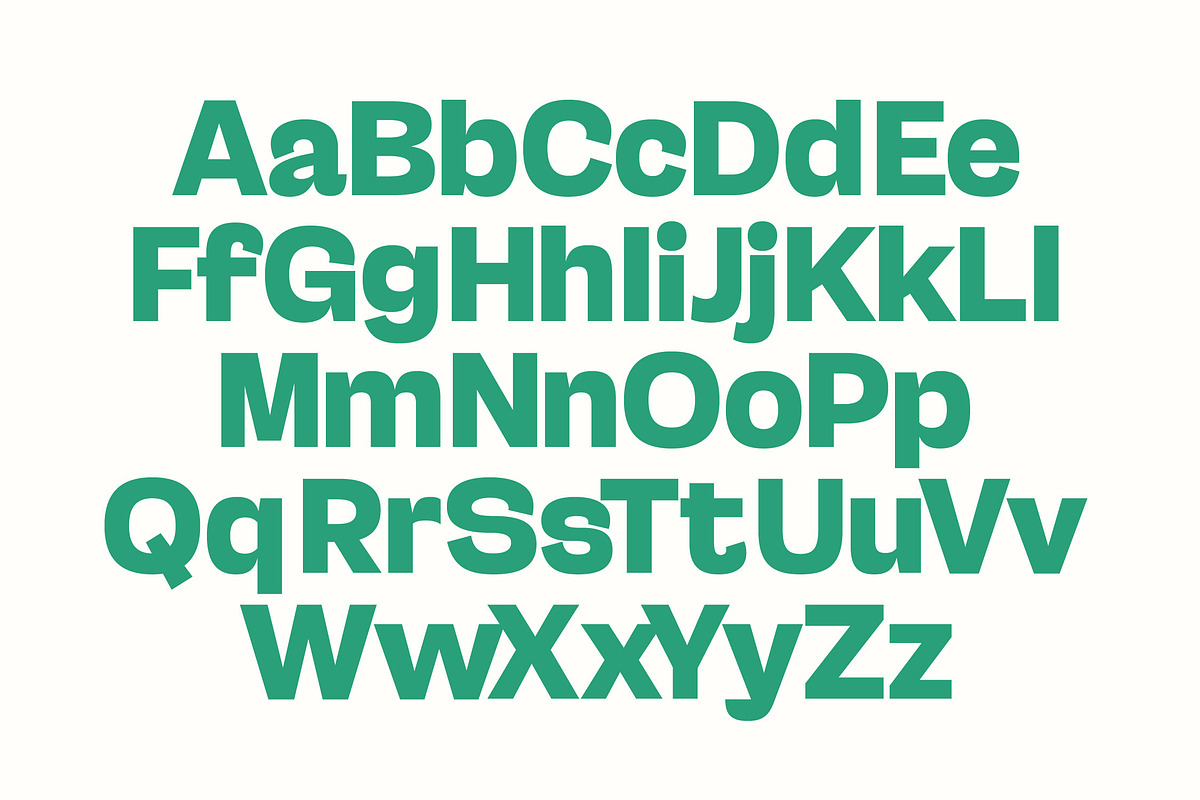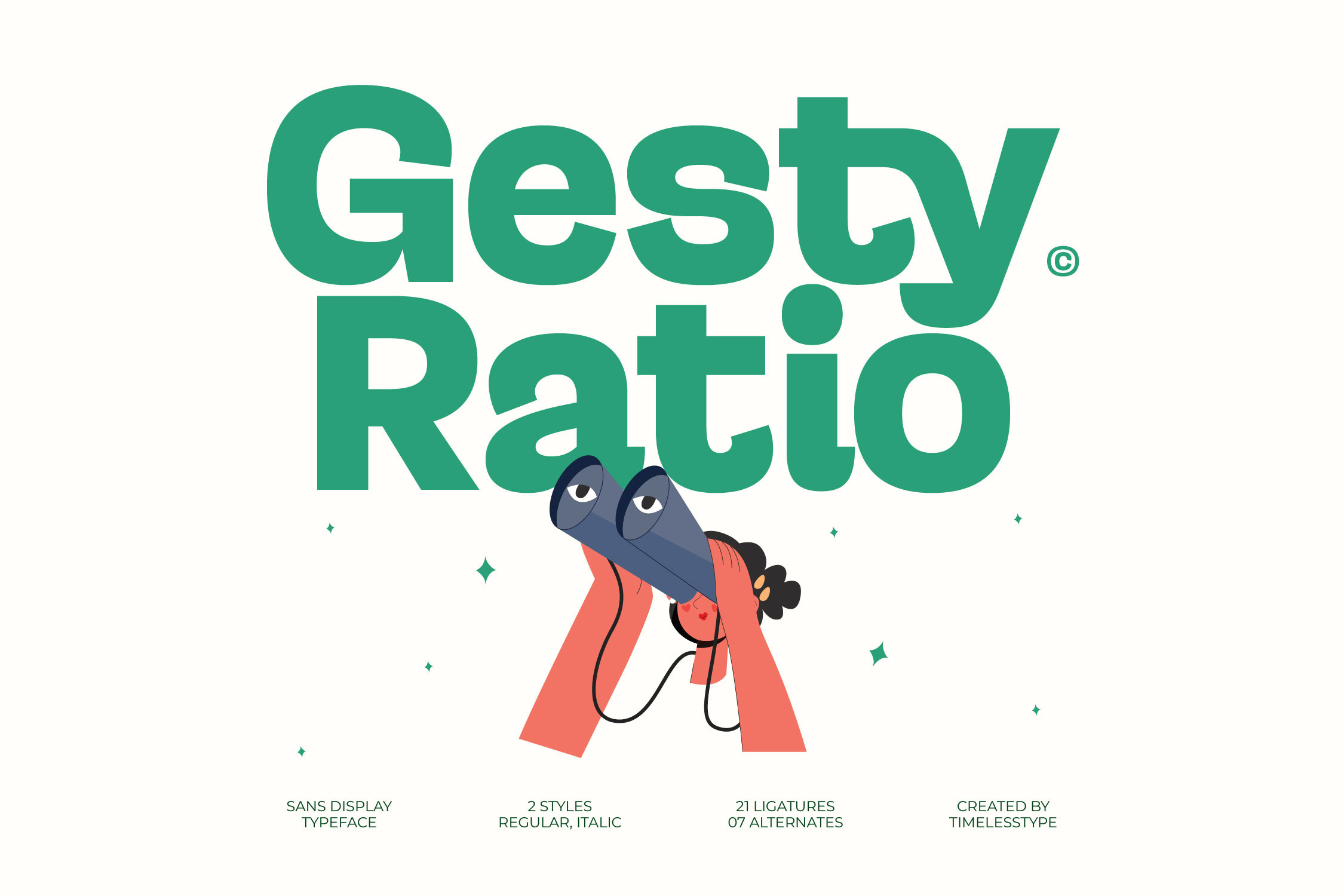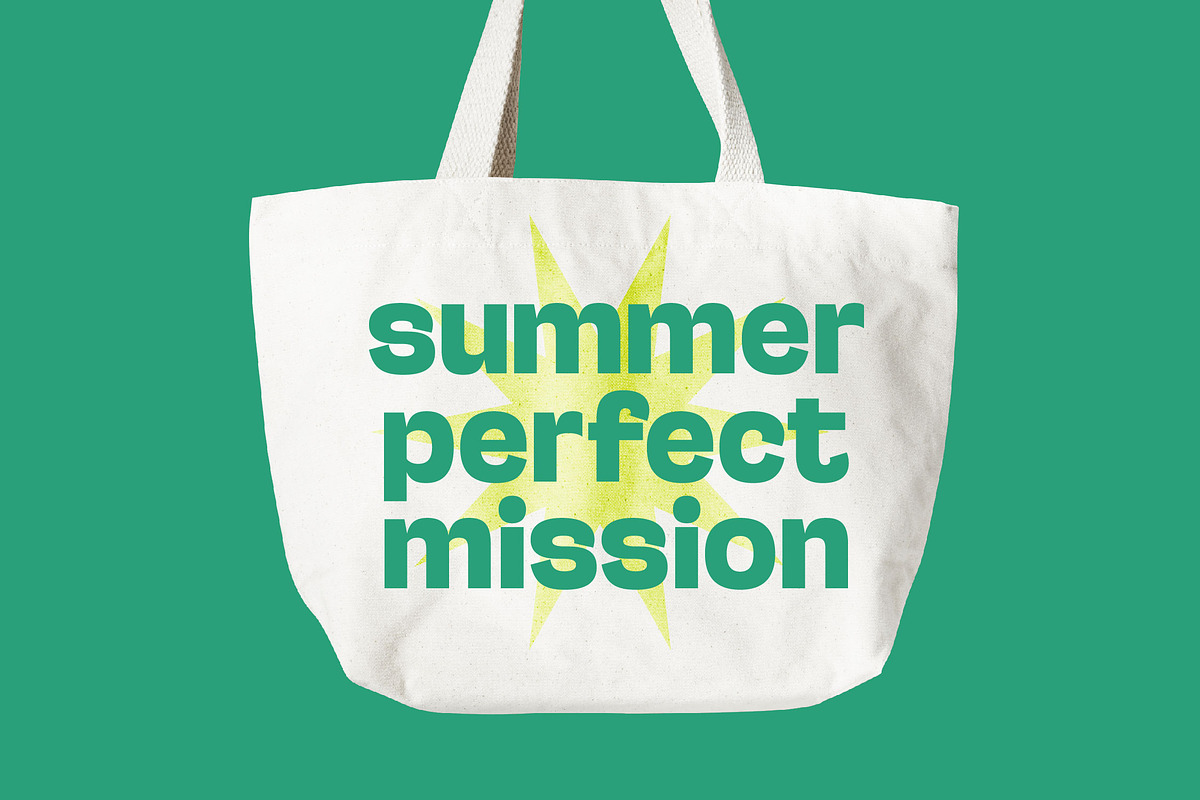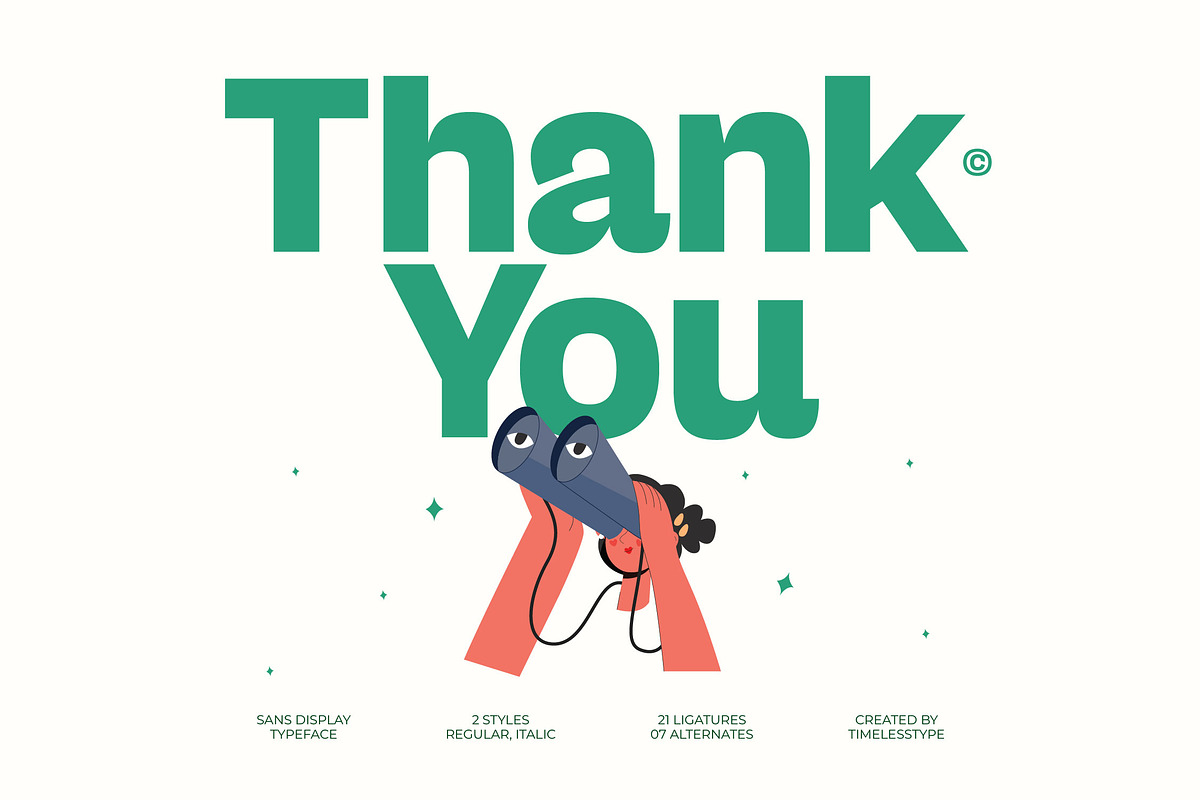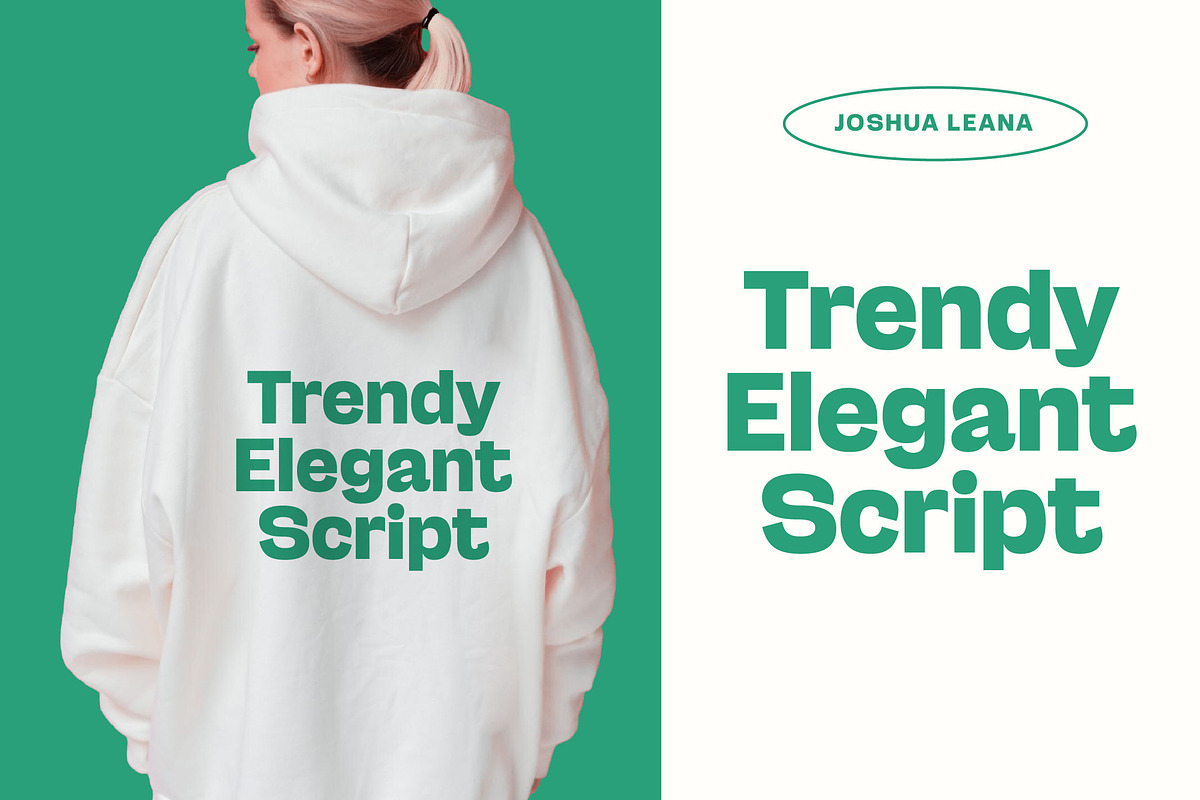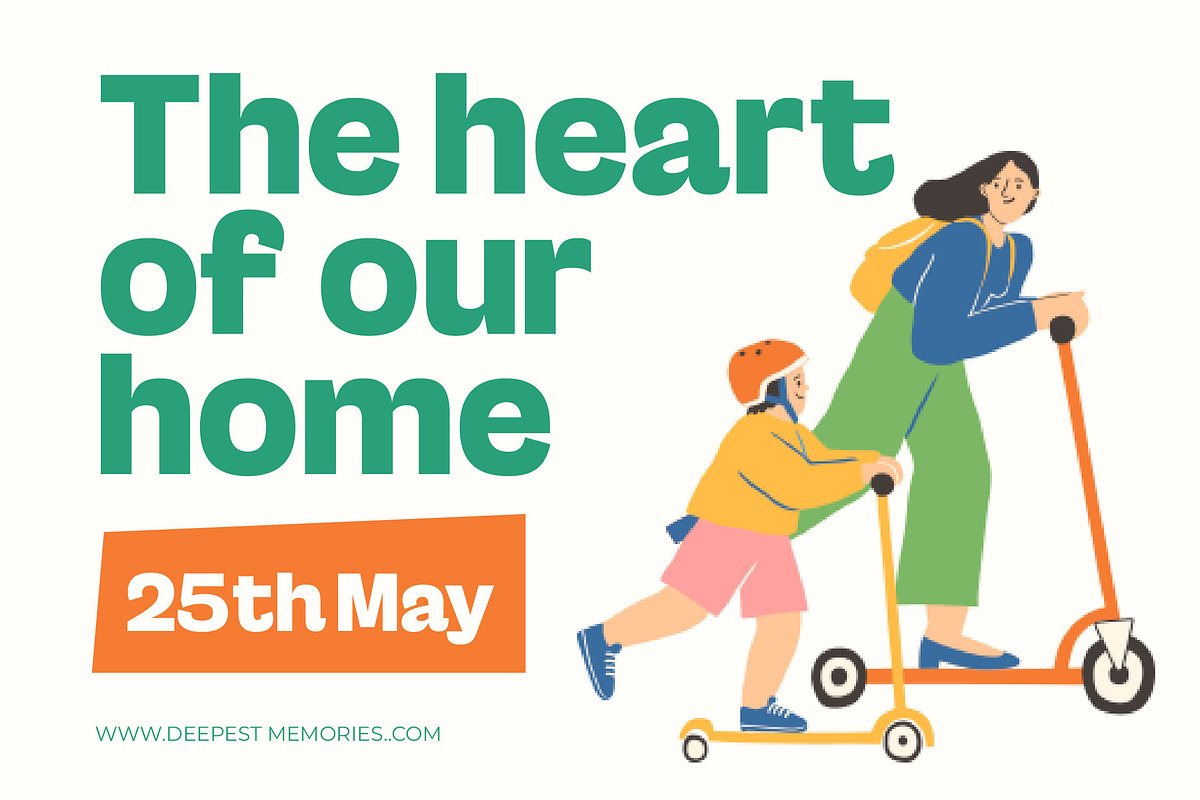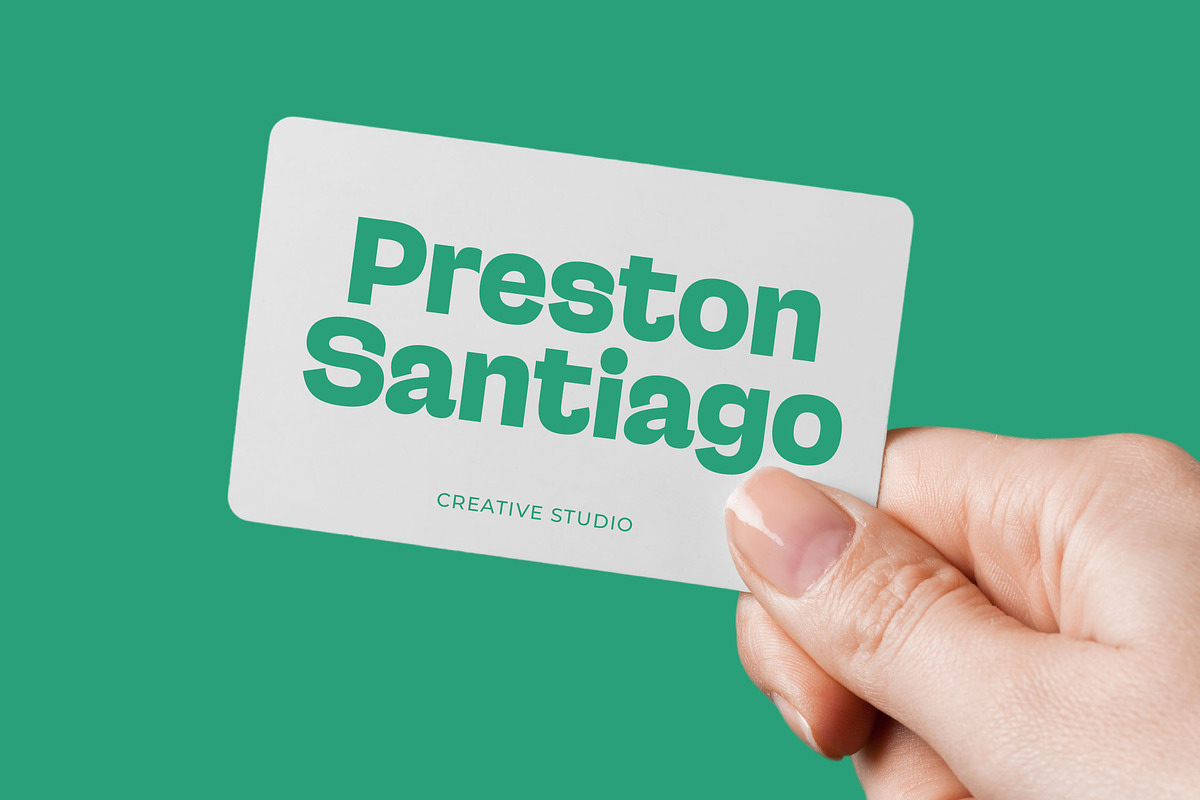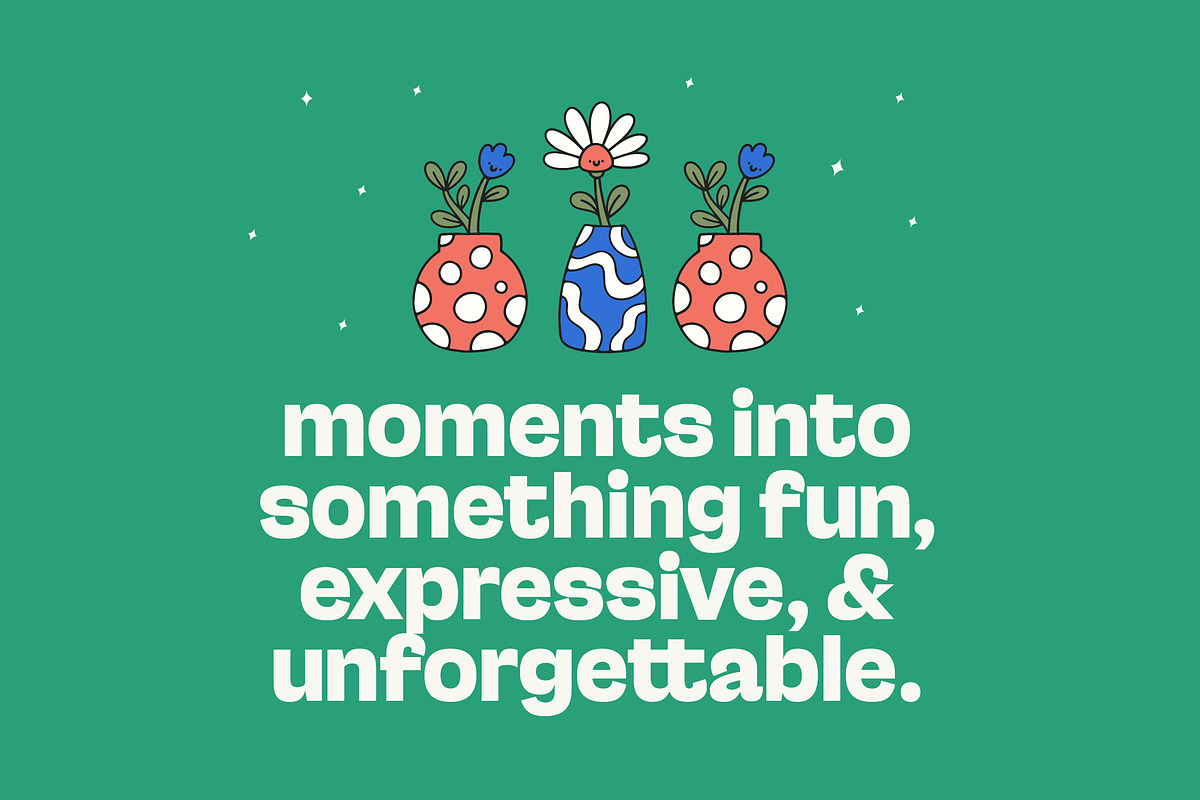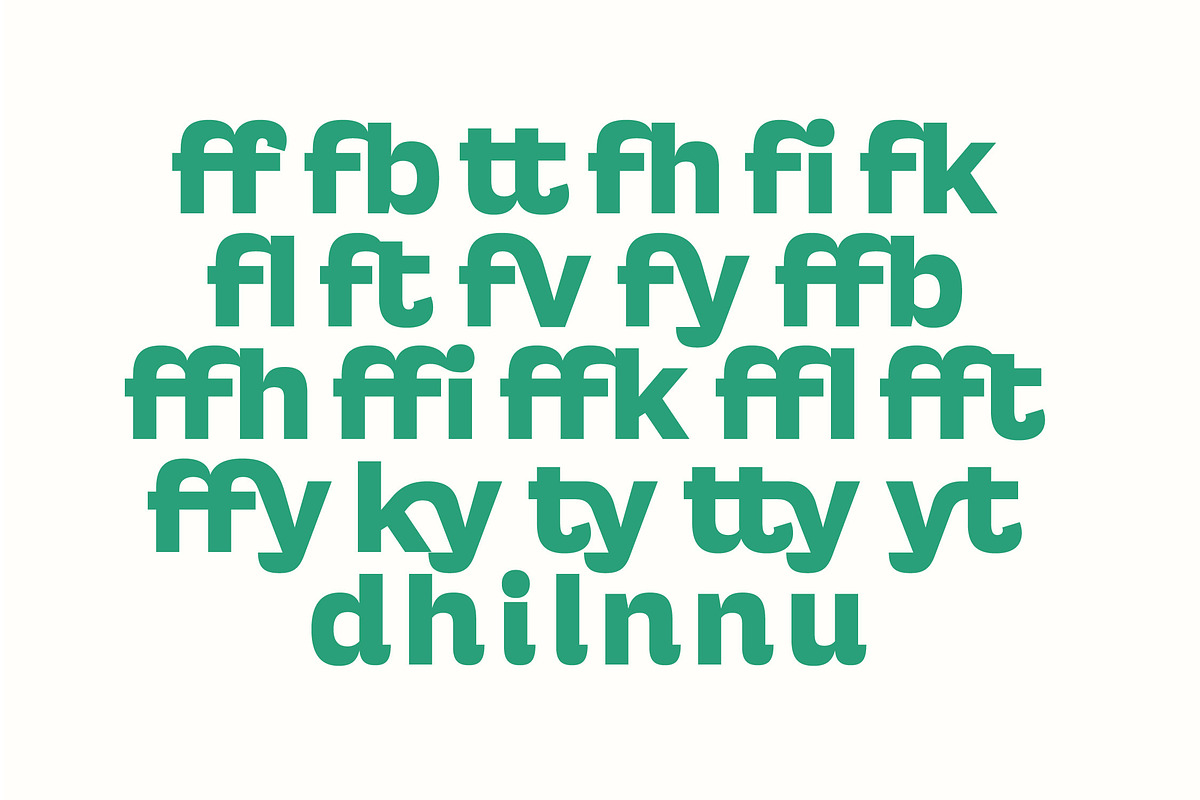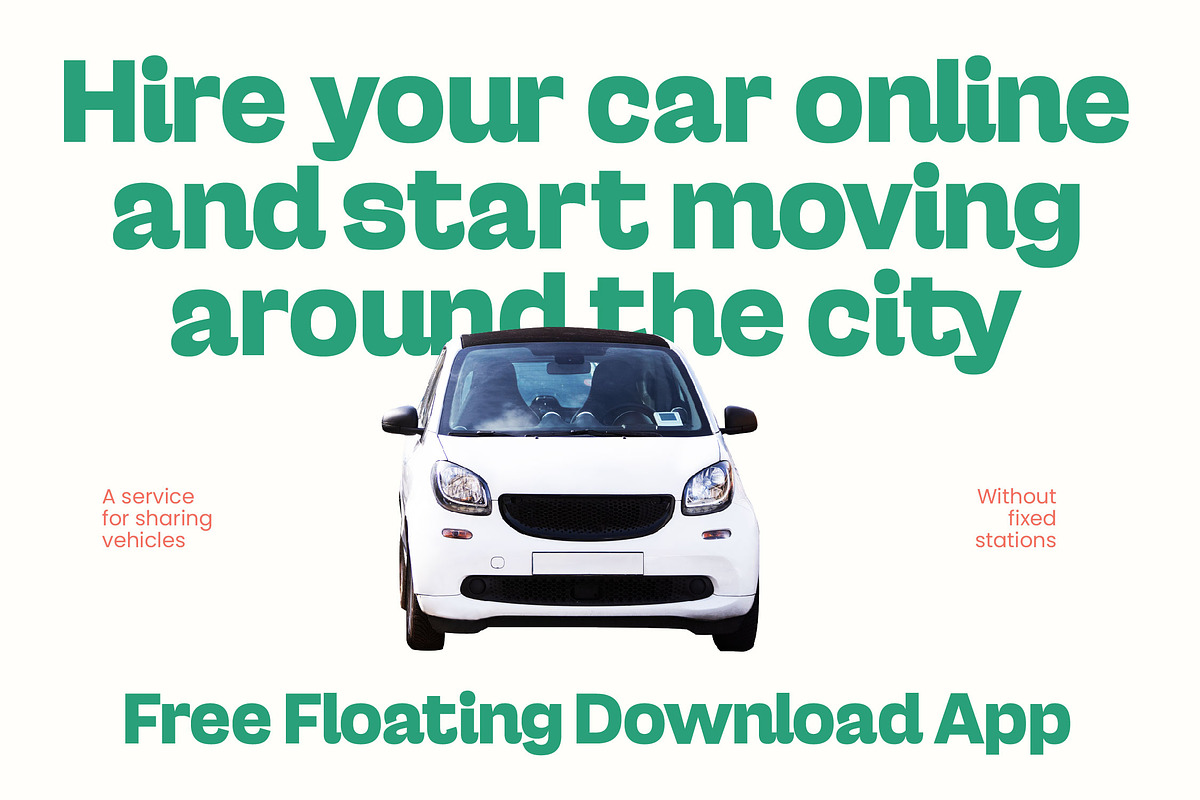
Gesty Ratio Modern Display Font
Gesty Ratio captures a vibrant energy that transforms every character into a statement of pure confidence. It’s the perfect blend of contemporary flair and timeless structural integrity for the modern creator.
Inspired by the rhythmic balance of geometric proportions and organic movement, this typeface was born from the desire to bridge the gap between architectural lines and fluid expression. It reflects an atmosphere of playful sophistication and visual harmony.
This typeface delivers a powerful branding impact through its unique character shapes and bold presence. It stands as a premier modern serif display choice for those seeking luxury typography and a high-contrast serif or editorial font that commands immediate attention.
Aligning perfectly with the modern serif trend, this font speaks to the rise of character-driven typography in modern media. It meets the growing demand for editorial display fonts that offer both visual intrigue and a distinct, memorable personality.
Ideal for high-impact logo design and comprehensive branding systems, it also shines in the world of high-fashion packaging and luxury wedding invitations. Its versatility makes it a go-to choice for editorial layouts and fashion magazine spreads.
The package includes a comprehensive set of ligatures and alternates to provide endless creative combinations for your layouts. It features full multilingual support with extensive international characters and smooth swashes that ensure global accessibility for any creative project.
Ligatures and Alternative Style Stylistic Set